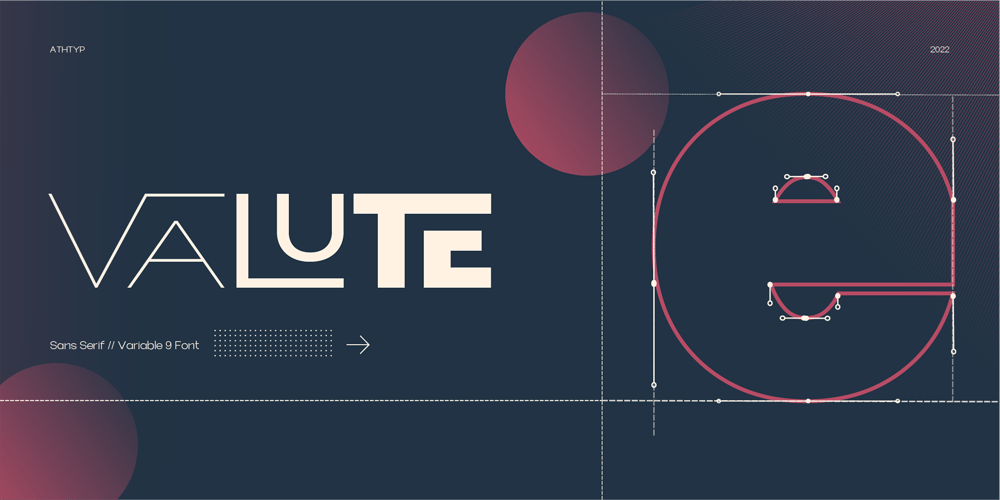
Valute
Valute font
Valute Font Family was designed by Ekayasa and published by Authentype. Valute contains 9 styles and family package options. Valute is a custom font with variable typeface, but at first glance it looks very mischievous. Very thincontrasting lines are very legible with heavy use of paragraph text. We made Valute with 9 weights that include ligatures and are multilingual.We will make language and feature updates in the future as this is a long-term project that we will be building on.